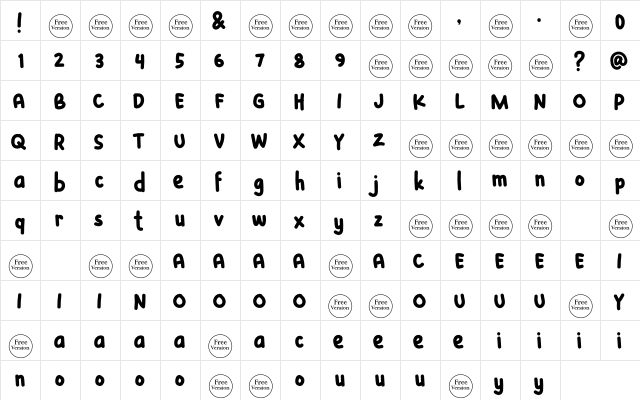
My Home Free Trial Regular
Design Context for My Home Free Trial Typeface
My Home Free Trial takes a measured approach to typography — its balanced proportions and neutral character make it a reliable workhorse for both digital and print work.